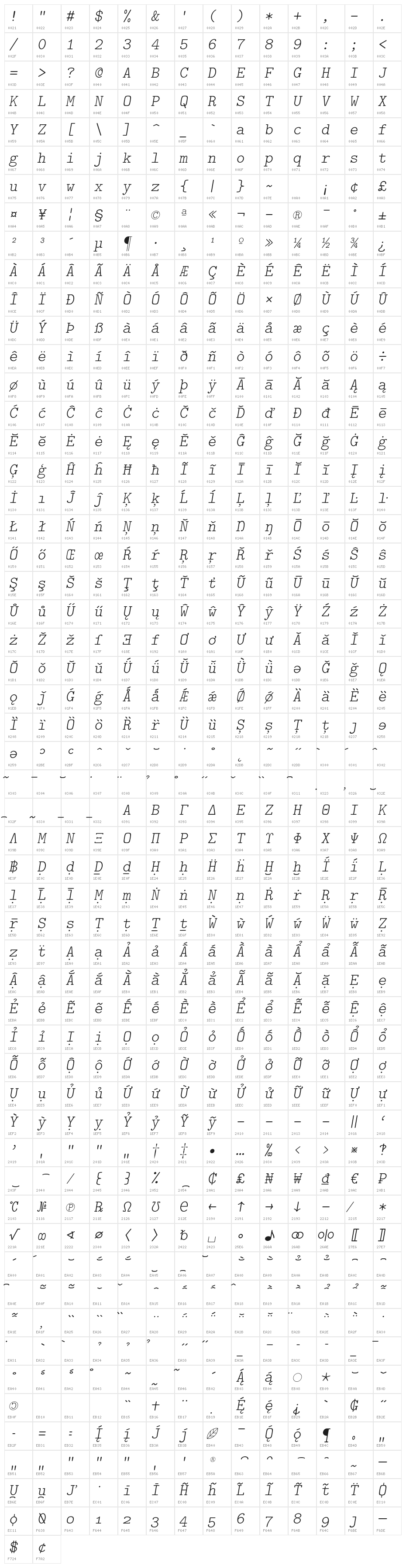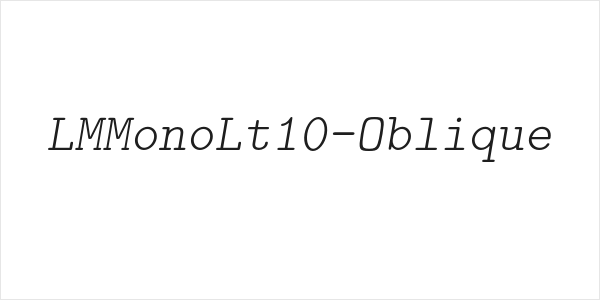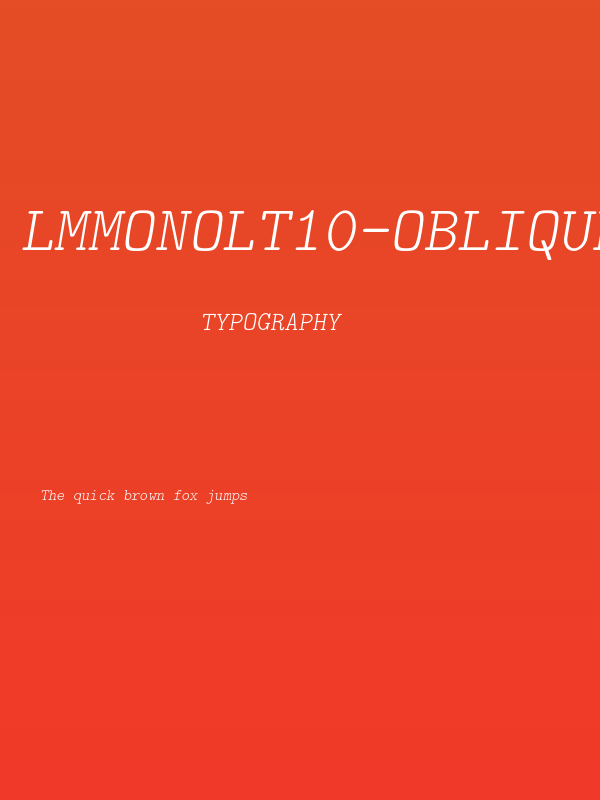
LMMonoLt10-Oblique Font
LMMonoLt10-Oblique Description
This font features a monospaced design with a distinct oblique style, giving it a modern and technical appearance. Each character is evenly spaced, which is typical of monospaced fonts, making it ideal for coding and tabular data. The oblique angle adds a dynamic feel, while the consistent stroke width maintains readability. The font includes a full set of uppercase and lowercase letters, numerals, and a variety of punctuation marks and special characters. Its clean lines and straightforward design make it versatile for both digital and print applications.
| Use Case | Coding, Technical documentation, Data tables |
| Proposed Projects | Ideal for coding environments, technical documentation, and data tables. |